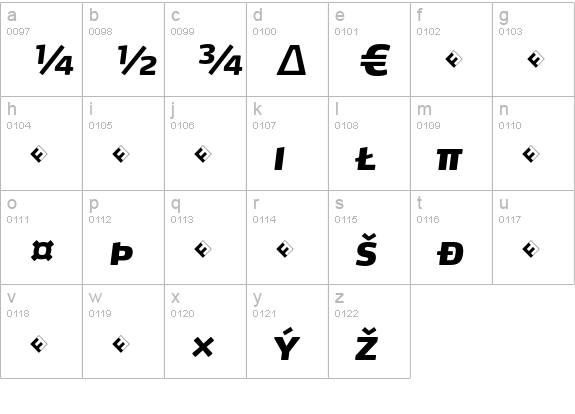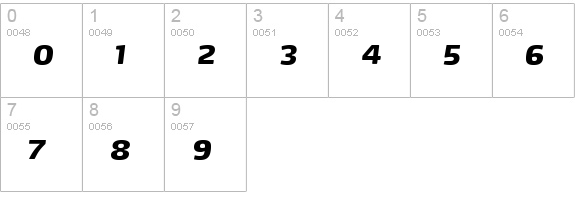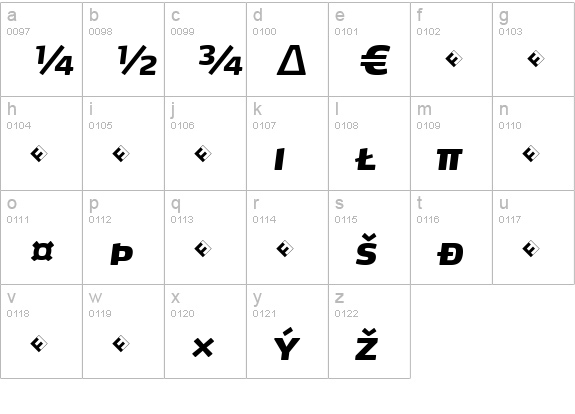
Max-BlackItalicSCExpert Font Details
Max-BlackItalicSCExpert is a bold and stylish font that exudes sophistication and elegance. Its sleek design and unique italic style make it perfect for adding a touch of class to any project. This font is ideal for use in headings, titles, and other design elements where you want to make a statement. The best part is that Max-BlackItalicSCExpert is available for free download at FontsMarket.com. You can easily access this stunning font to enhance your designs and give them a professional and polished look. Don't miss out on the opportunity to elevate your projects with this exquisite typeface. Download Max-BlackItalicSCExpert today and take your designs to the next level!